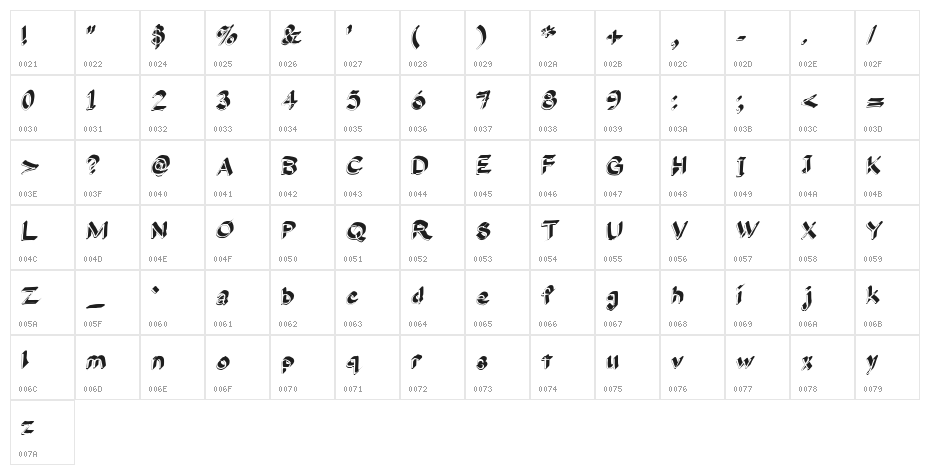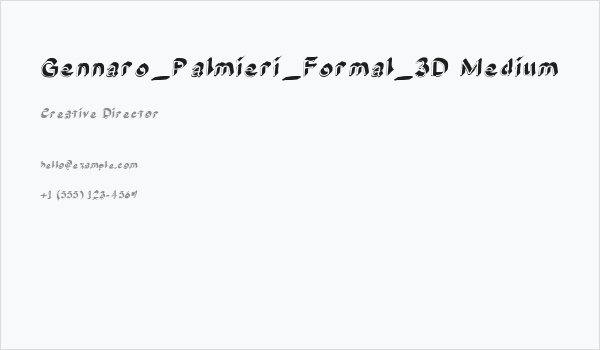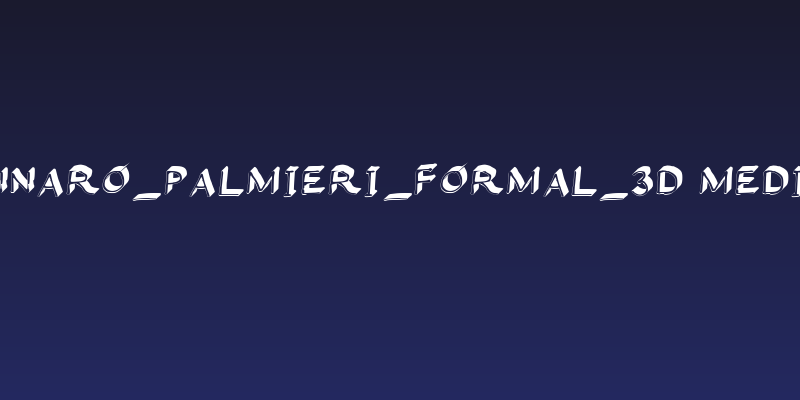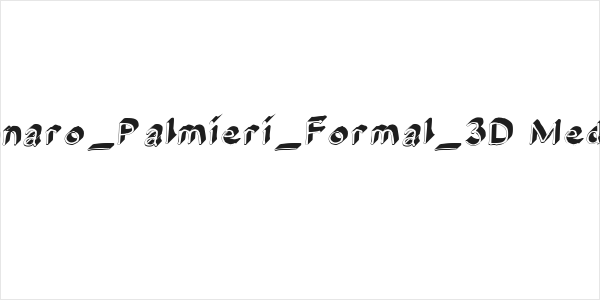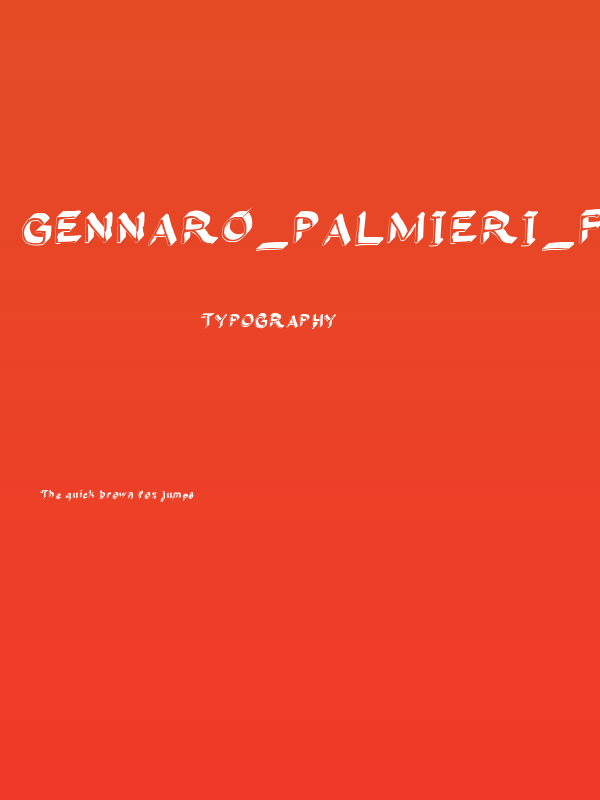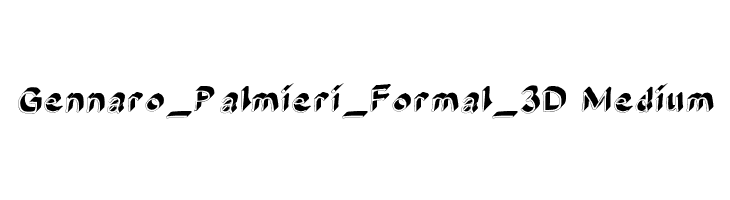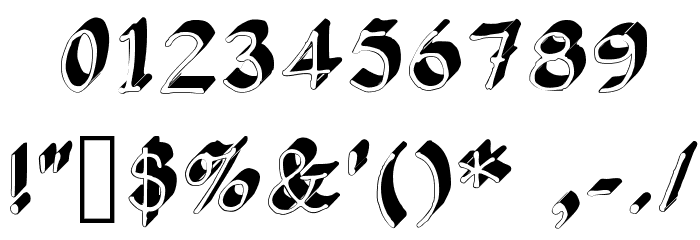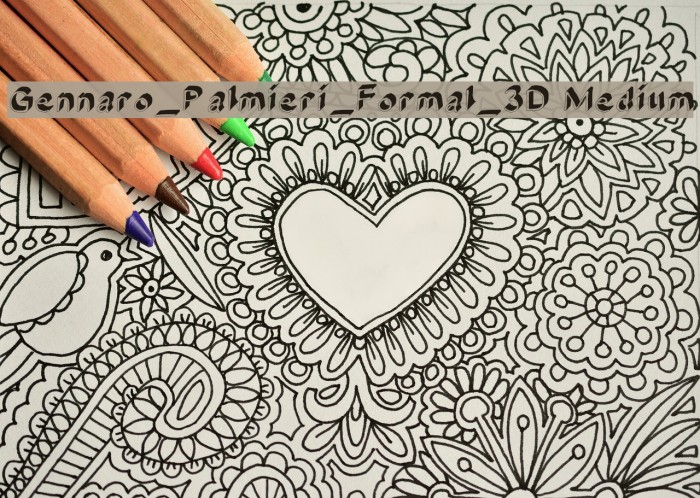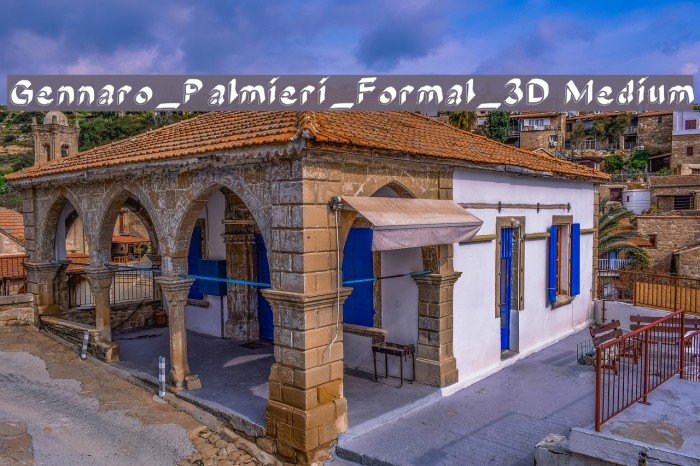
Gennaro_Palmieri_Formal_3D Medium Font
Gennaro_Palmieri_Formal_3D Medium Description
This font features a bold, three-dimensional style with a formal and sophisticated appearance. The letters are designed with a shadow effect that gives them depth and a sense of movement. The uppercase and lowercase characters maintain a consistent style, with sharp edges and clean lines. The numerals and special characters are equally bold, ensuring a cohesive look across all text elements. This font's unique 3D effect makes it stand out, providing a dynamic and engaging visual experience.
| Use Case | Logos, Headlines, Posters |
| Proposed Projects | Ideal for branding, posters, and any design project that requires a striking and formal appearance. |